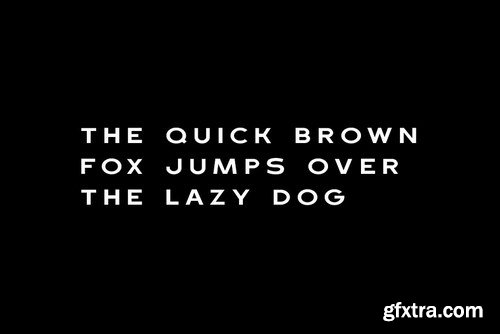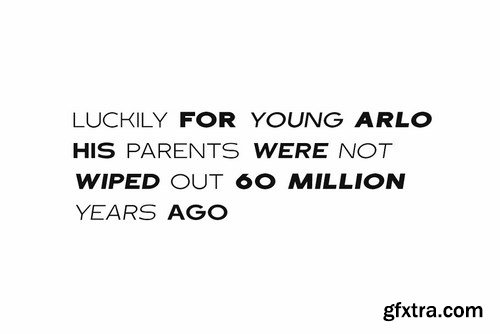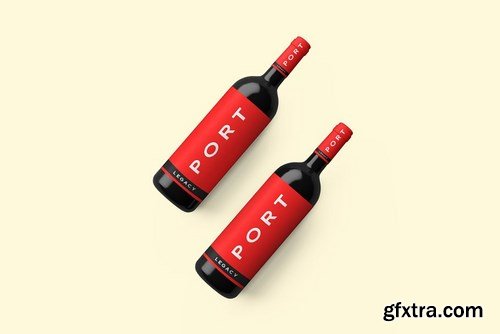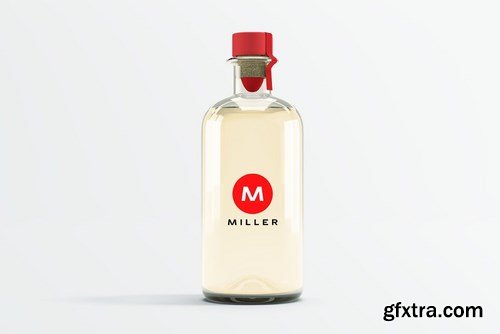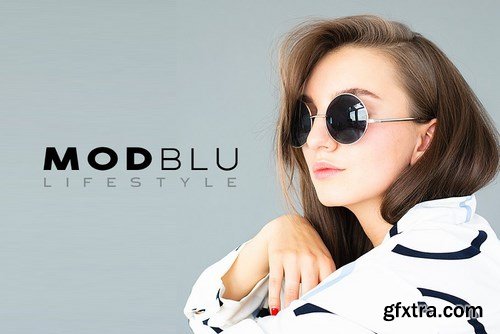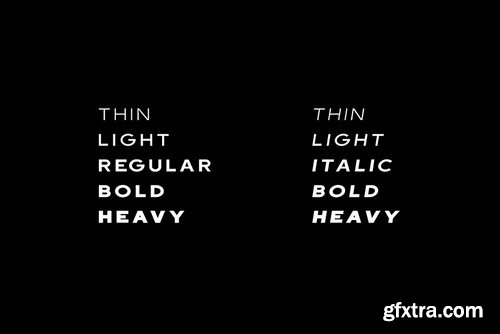
DUBLIN is a minimal and modern typeface for headlines, big text, branding, logotypes & display usage. This all-caps typeface is perfect for creating outstanding logos, promotional content and marketing graphics that can really grab attention from your visitors. Please see the examples shown above to get an idea about the capability of this typeface.